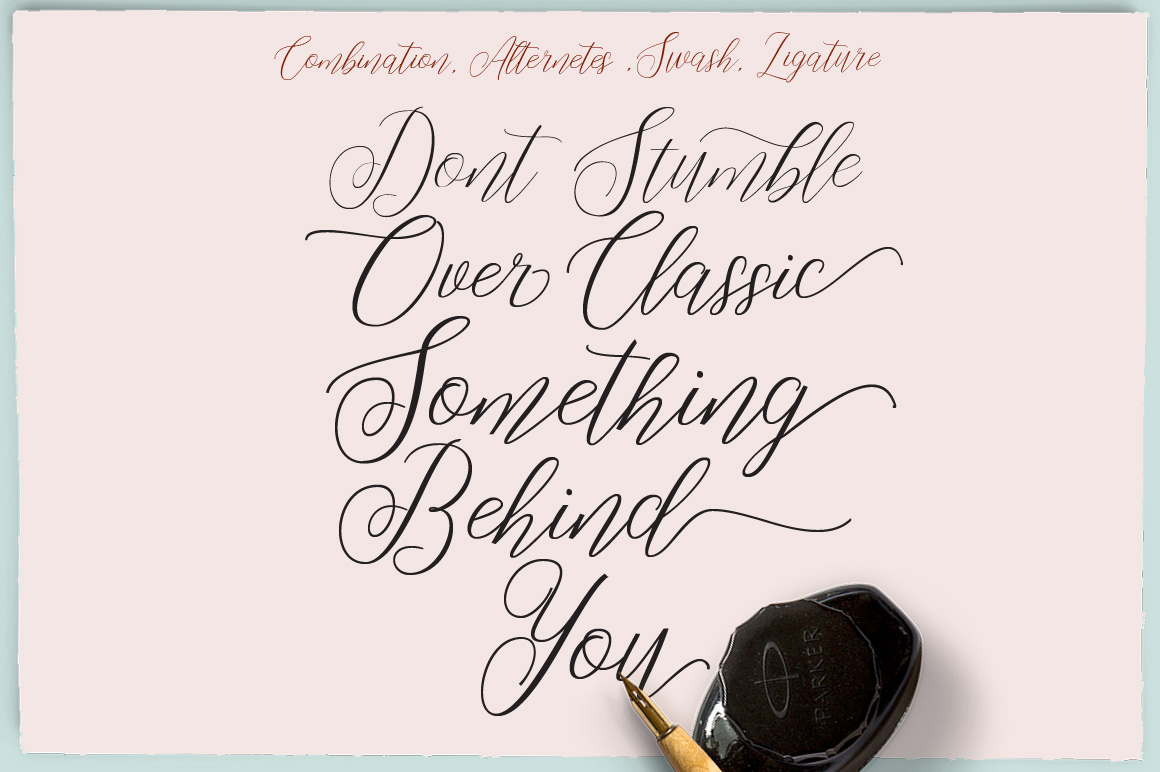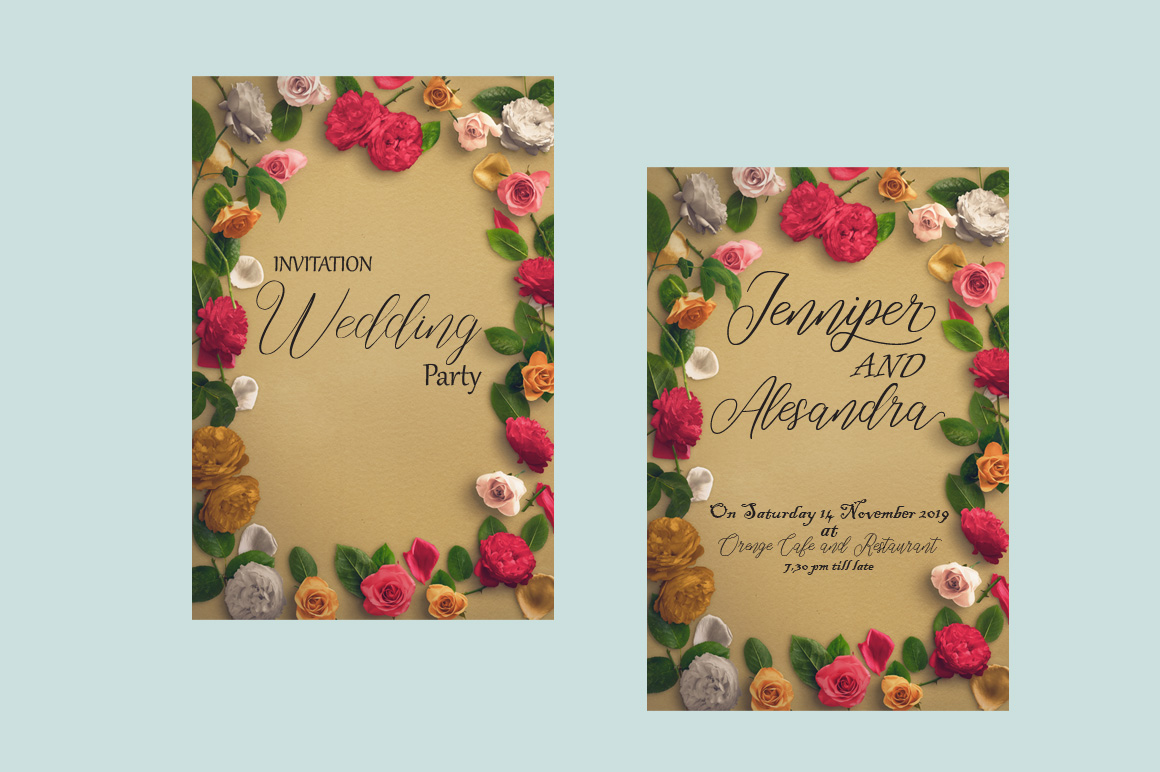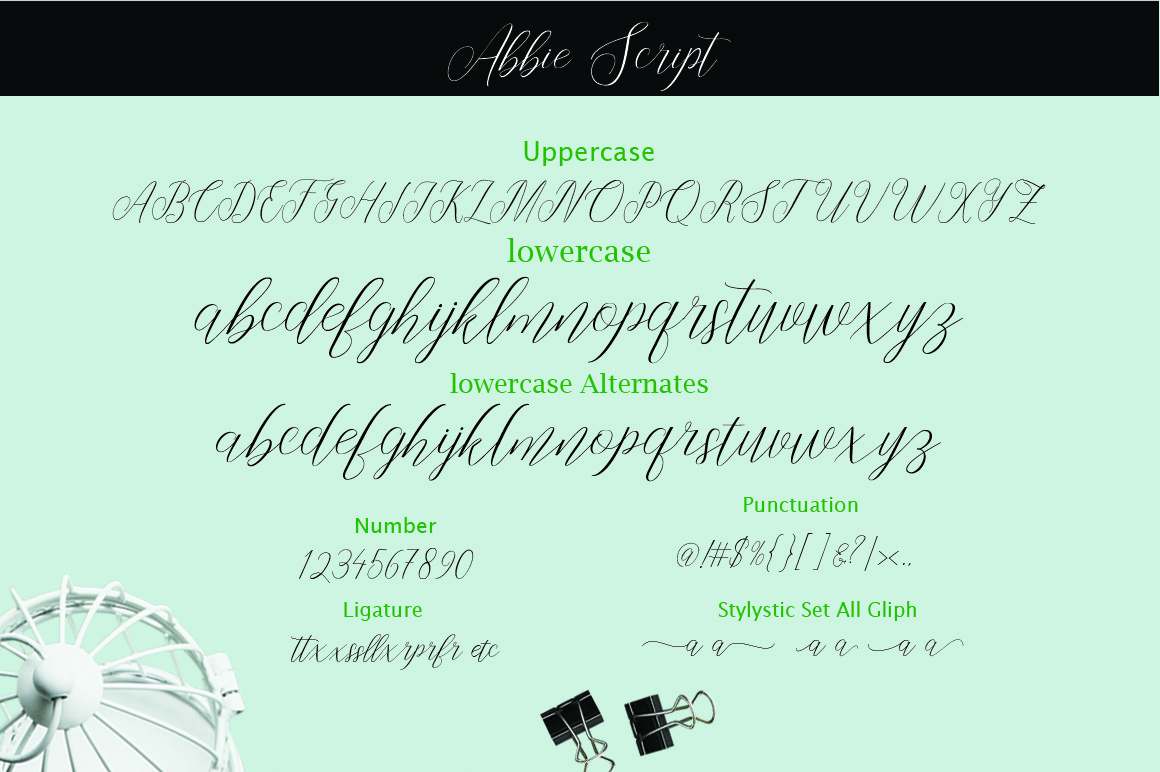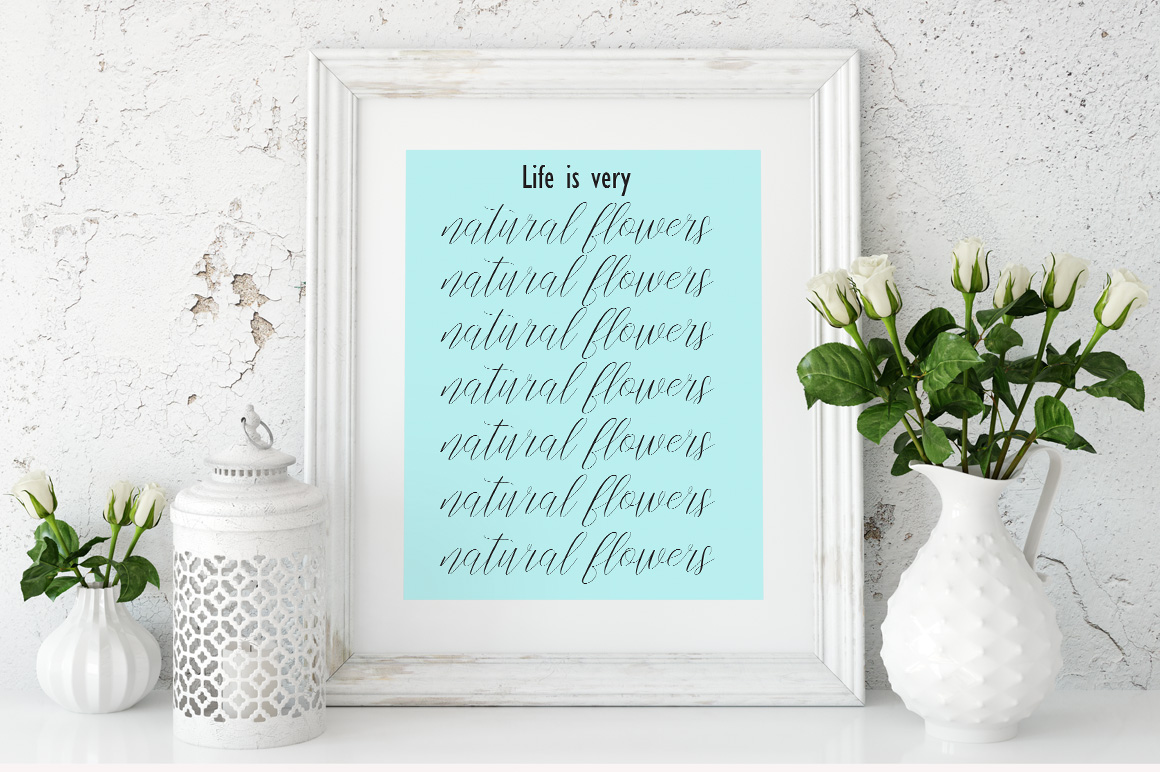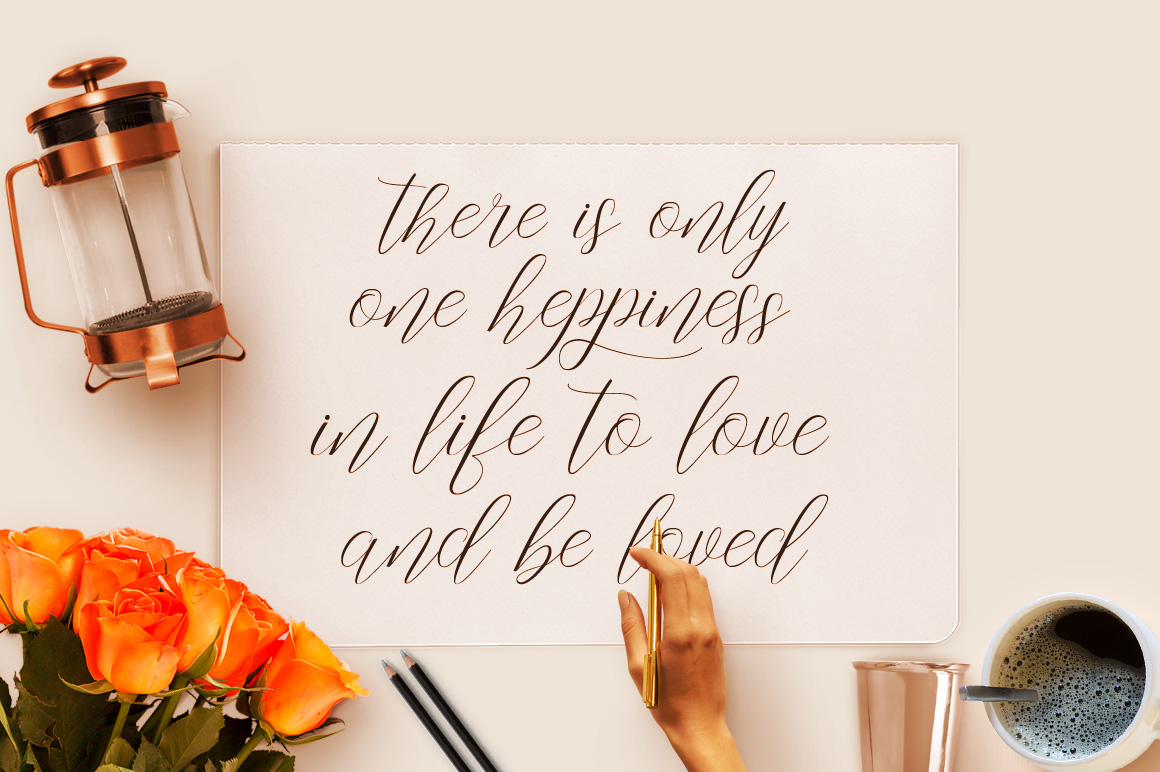
Abbie Font
About Abbie Font
Abbie is a floral, hand lettered calligraphy script. With beautiful waves and a natural flow, Abbie has a unique style that is softer and smoother than many other script fonts.